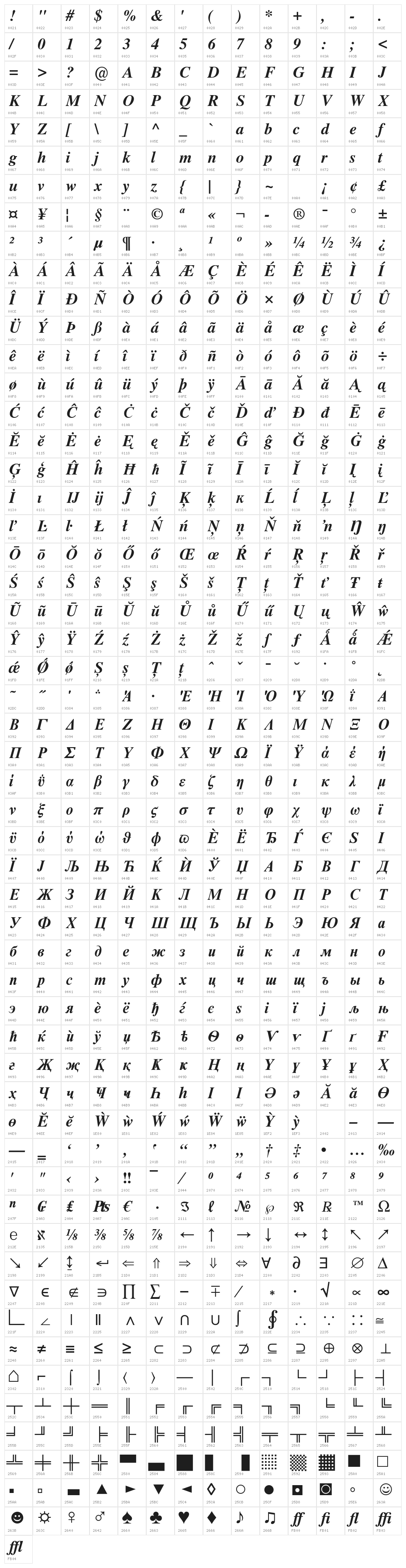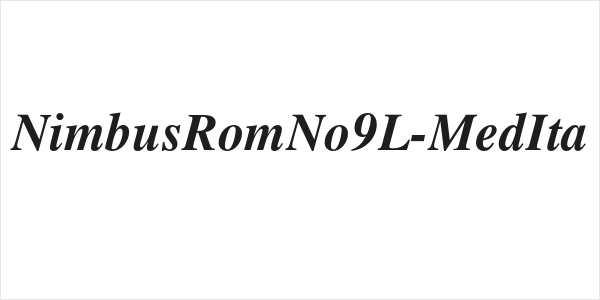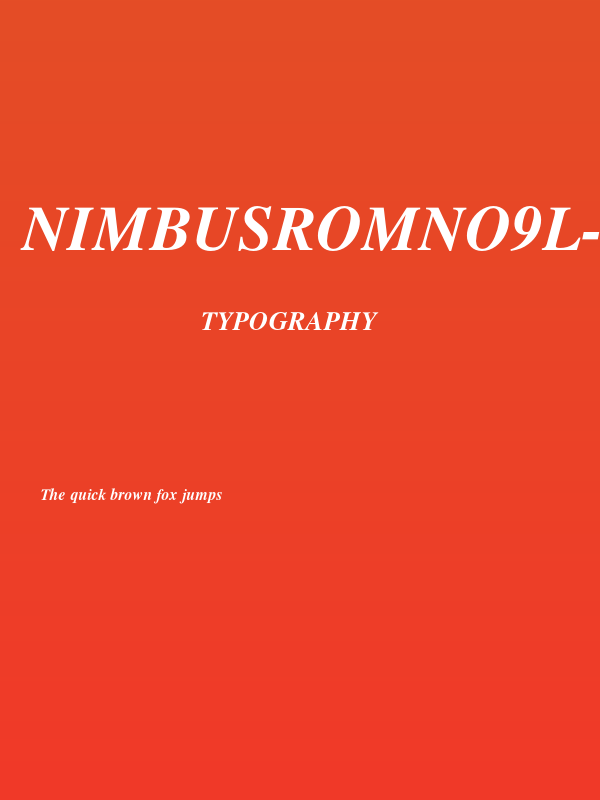
NimbusRomNo9L-MedIta Font
NimbusRomNo9L-MedIta Description
This font exhibits a classic serif style with a distinct italic slant, giving it an elegant and sophisticated appearance. The characters are well-defined with moderate contrast between thick and thin strokes, enhancing readability while maintaining a refined aesthetic. The serifs are pronounced yet not overly ornate, contributing to a timeless look that is both professional and approachable. The font's italic nature adds a dynamic feel, making it suitable for emphasizing text without losing clarity. The spacing between characters is balanced, ensuring legibility across various sizes and contexts.
Overall StyleClassic
Proposed ProjectsIdeal for editorial design, book covers, formal invitations, and branding materials that require a touch of elegance and sophistication.